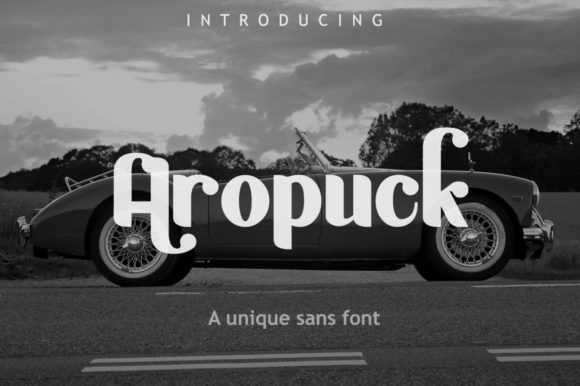
The Aropuck Font: A Vintage Sans Serif Gem for Creative Projects
I still remember the frustration of working on a design project, hours spent searching for the perfect font, only to end up with something that just didn’t feel right. My client wanted a vintage vibe, but with an artistic twist. That’s when I stumbled upon the Aropuck font, a game-changing vintage sans serif font that instantly elevated my design. In this article, I’ll share my experience with Aropuck, its features, and how to make the most of it in your creative projects.
An Honest Review of Aropuck Font
What I Love About Aropuck ✨
• ✅ Unique Artistic Feel: Aropuck’s vintage sans serif design adds a touch of sophistication and elegance to any project.
• ✅ Crafting Friendly: The font’s clear and readable style makes it perfect for crafting, whether you’re creating signs, cards, or other paper goods.
• ✅ Versatile: Aropuck works well for a variety of design projects, from branding and advertising to packaging and web design.
While Aropuck is an amazing font, it’s not without its quirks. ⚠️ Some users may find that the font’s vintage feel can be a bit overpowering if not used thoughtfully. Additionally, Aropuck’s sans serif design may not be the best fit for very small text sizes or body copy.
The Backstory of Aropuck
Aropuck’s design inspiration comes from vintage typography and art deco styles. The font’s creator aimed to craft a unique, artistic sans serif font that would evoke a sense of nostalgia and sophistication. While the exact story behind Aropuck’s creation may be fictional, its design is undoubtedly influenced by the classic typography of the past.
Q: What type of projects is Aropuck best suited for?
A: Aropuck is versatile and can be used for a variety of projects, including branding, advertising, packaging, web design, and crafting.
Q: Is Aropuck suitable for body copy or small text?
A: While Aropuck is a beautiful font, it may not be the best choice for body copy or small text due to its vintage sans serif design.